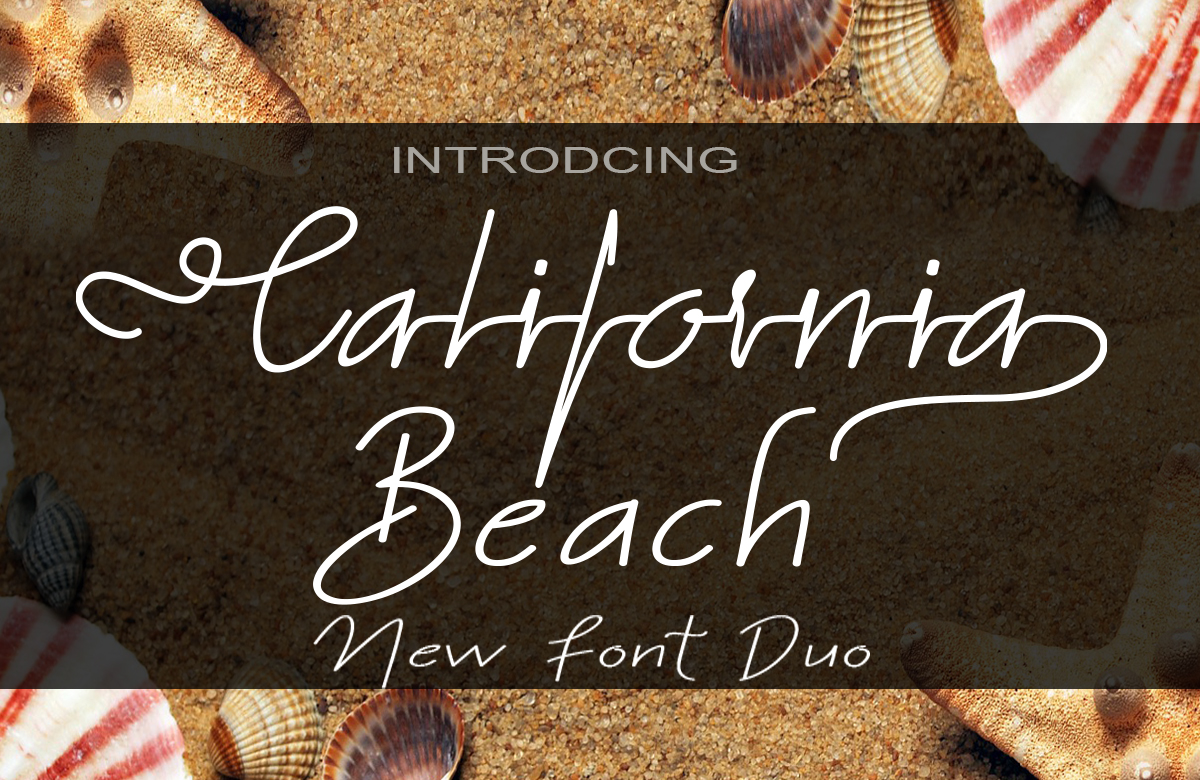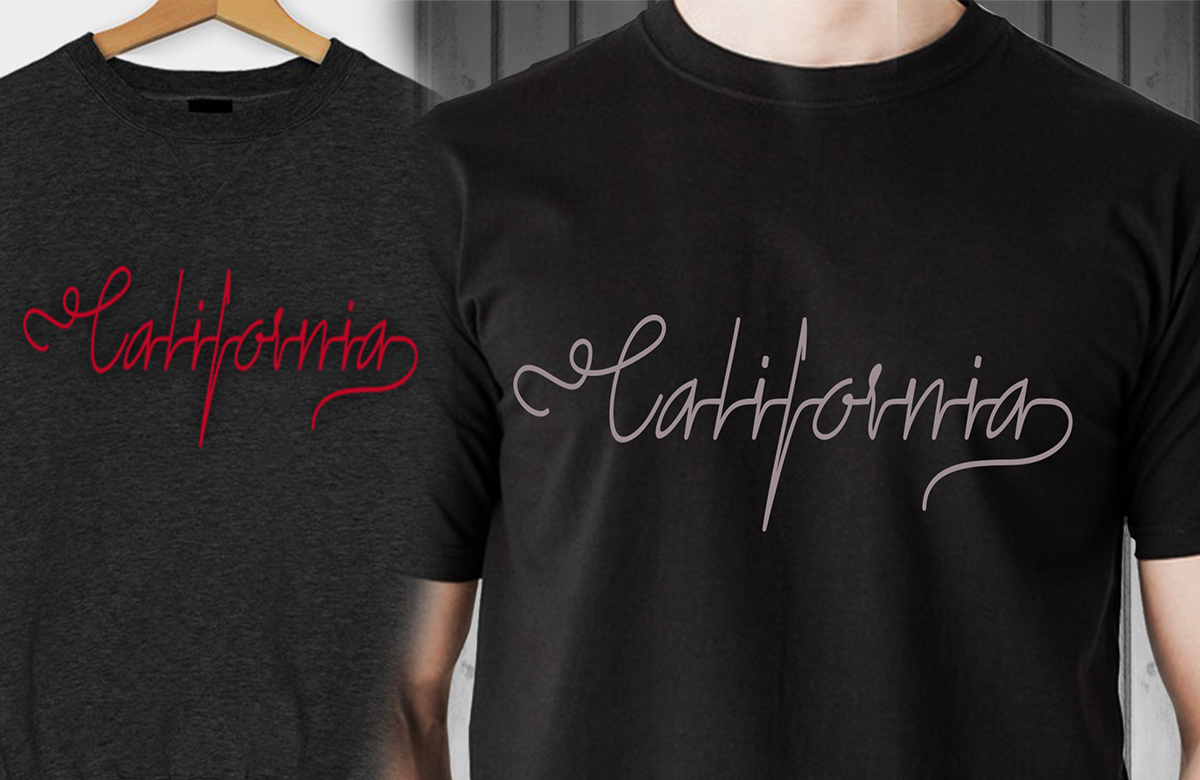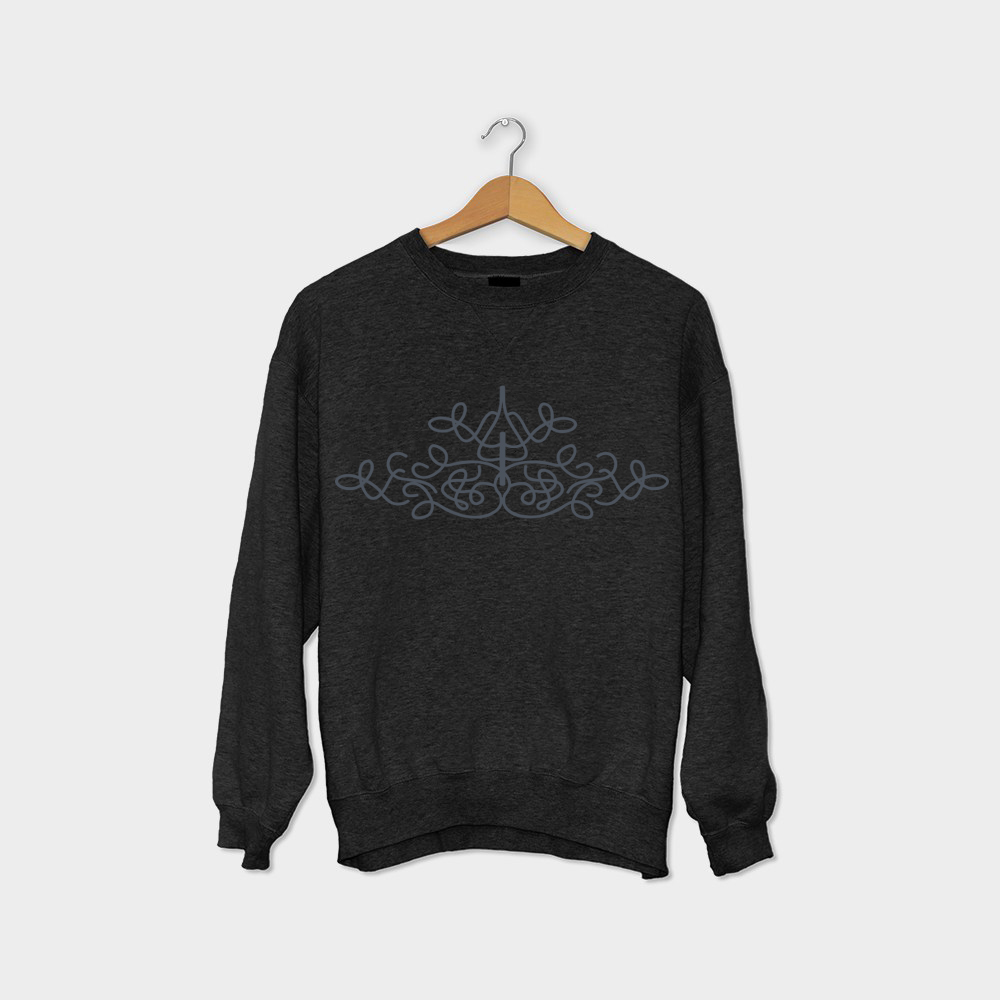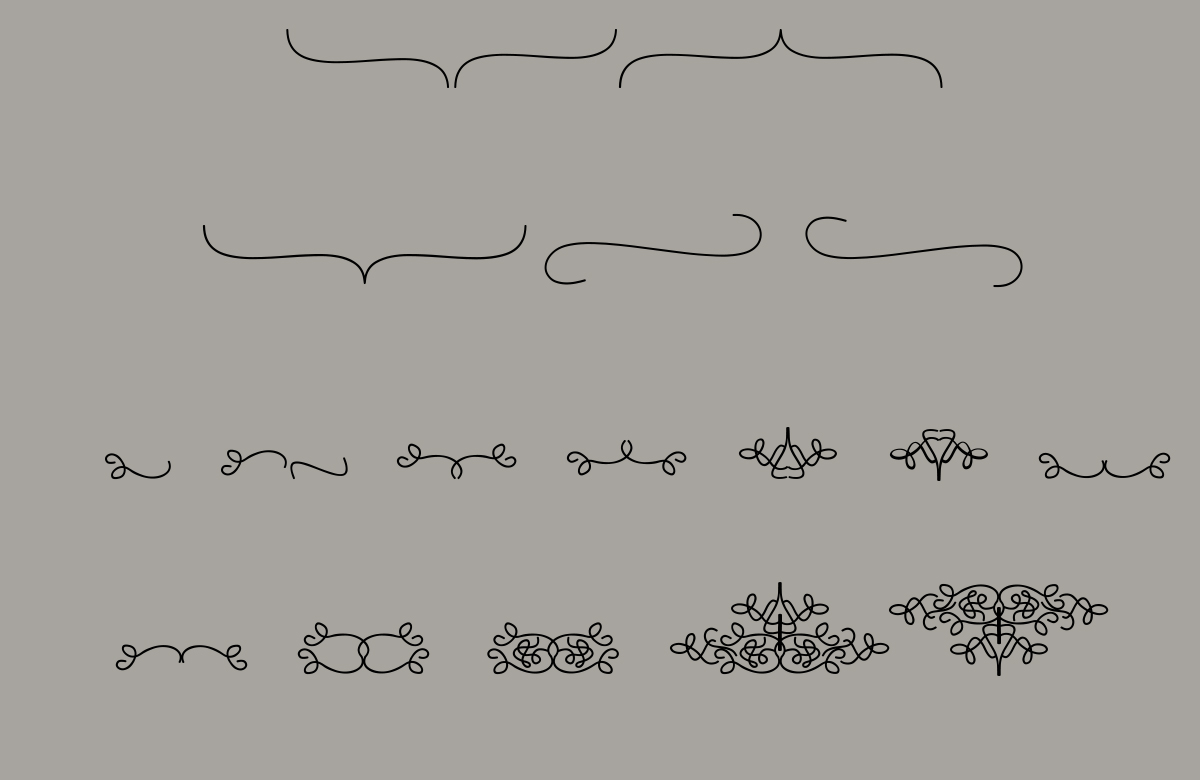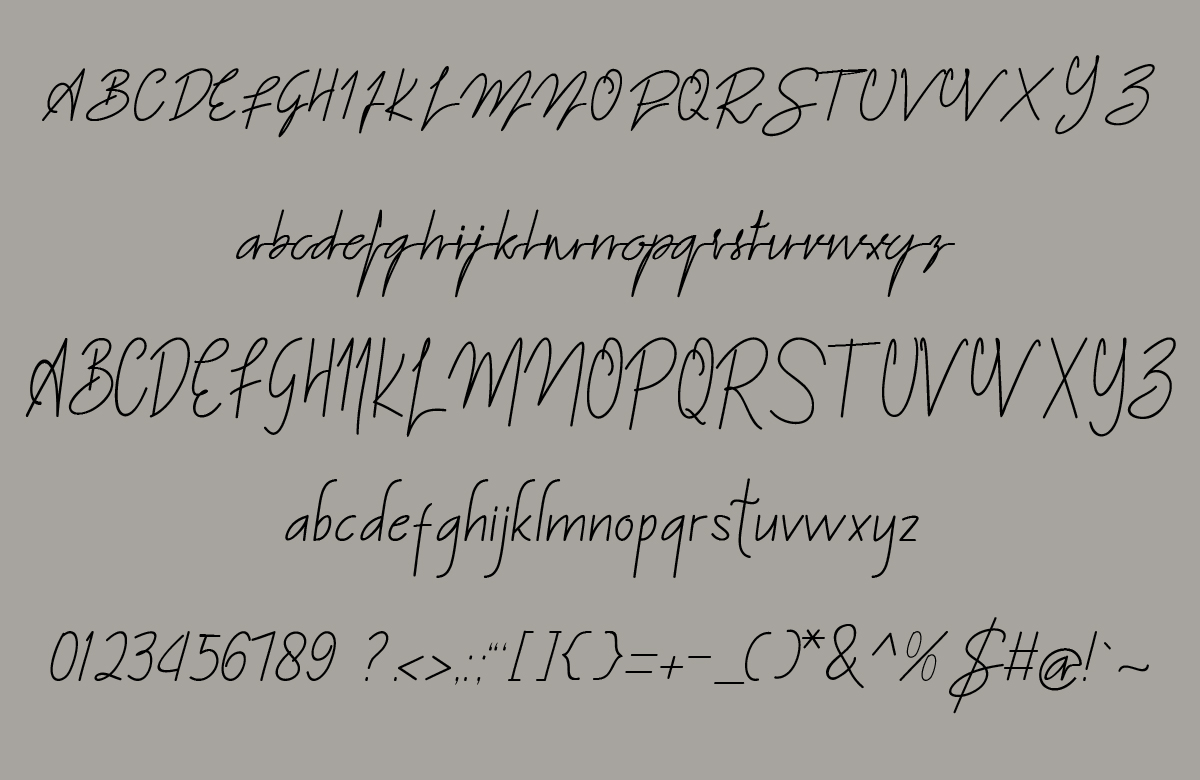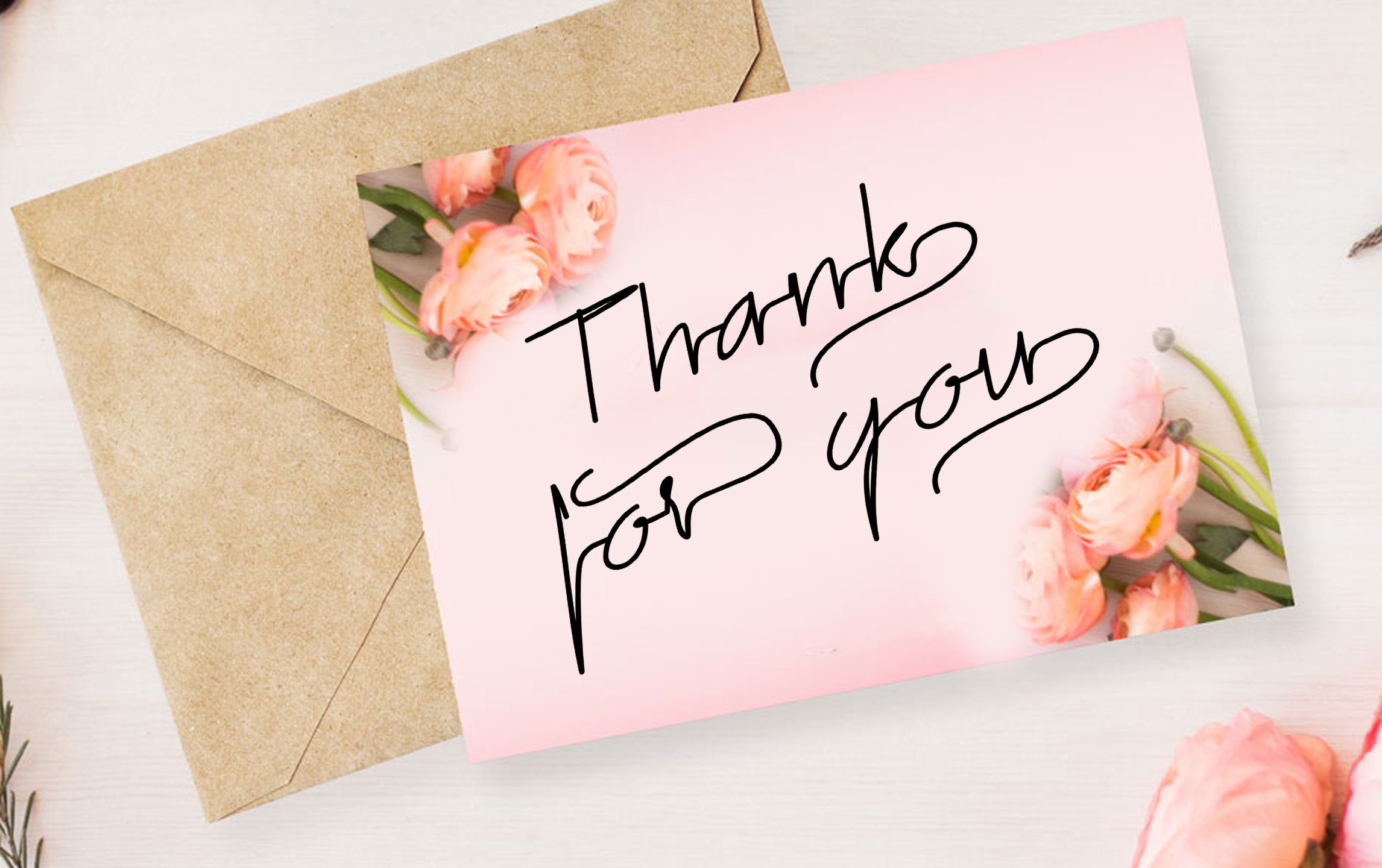
California Beach Duo Font
About California Beach Duo Font
California Beach duo is a fresh and modern font pairing with decorative characters and a dancing baseline. This is a wonderful and stylish font, perfect for displays or branding purposes.